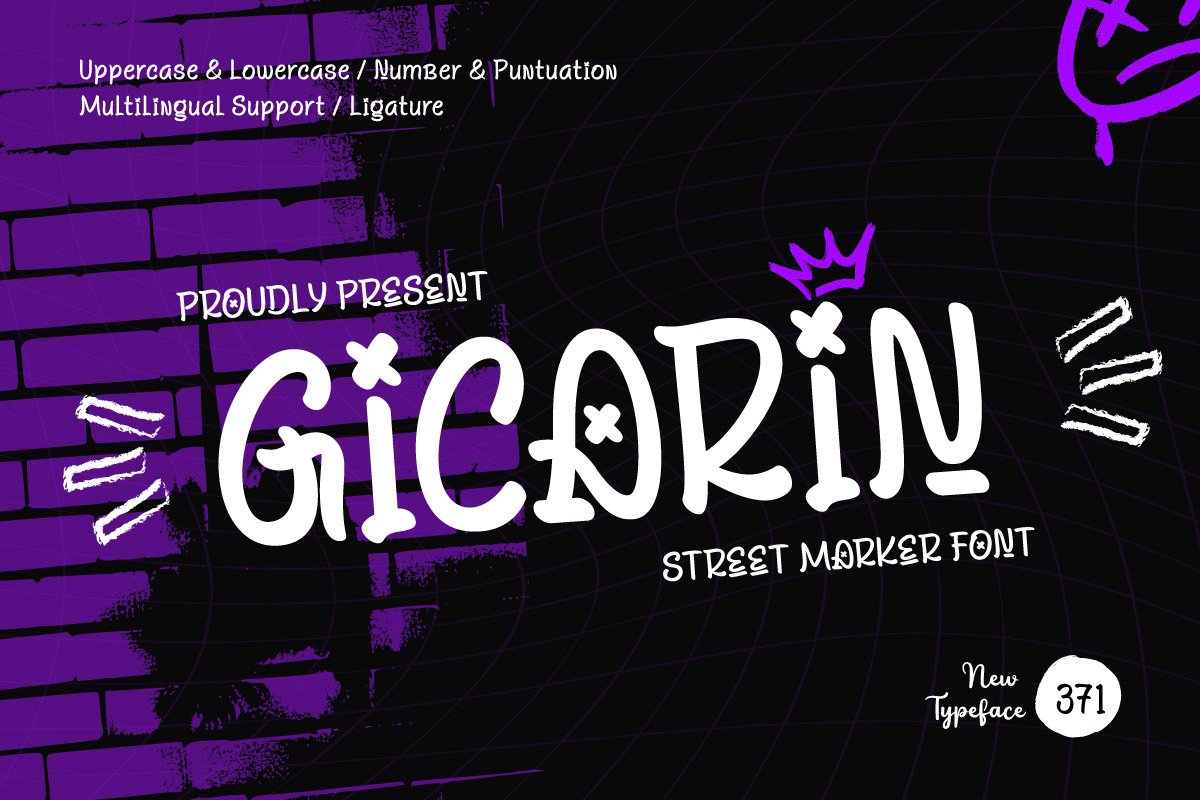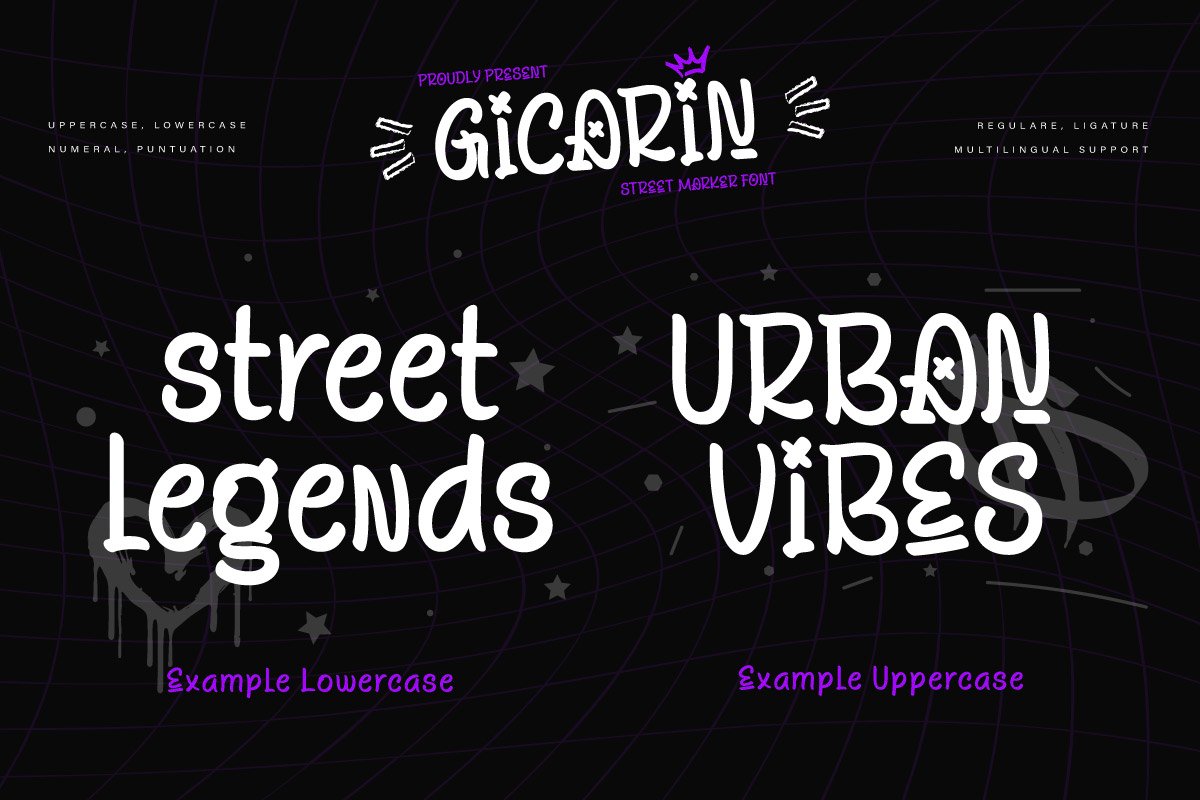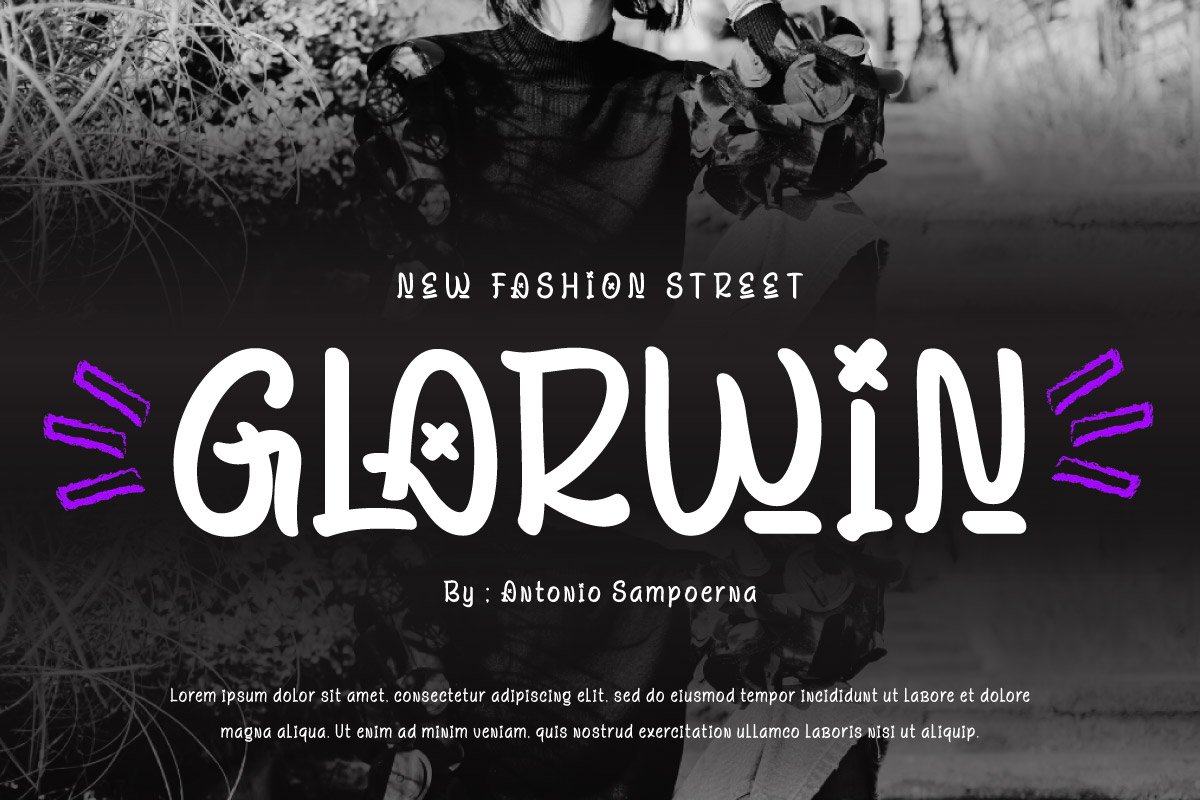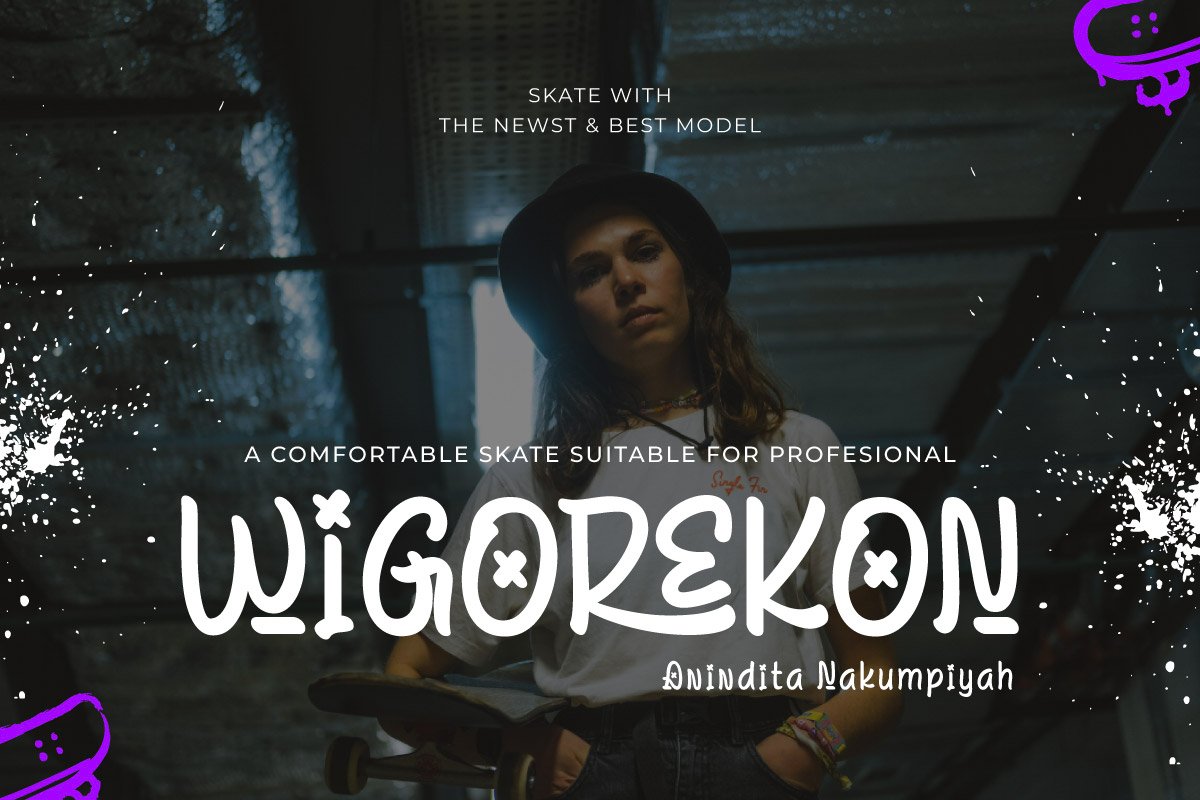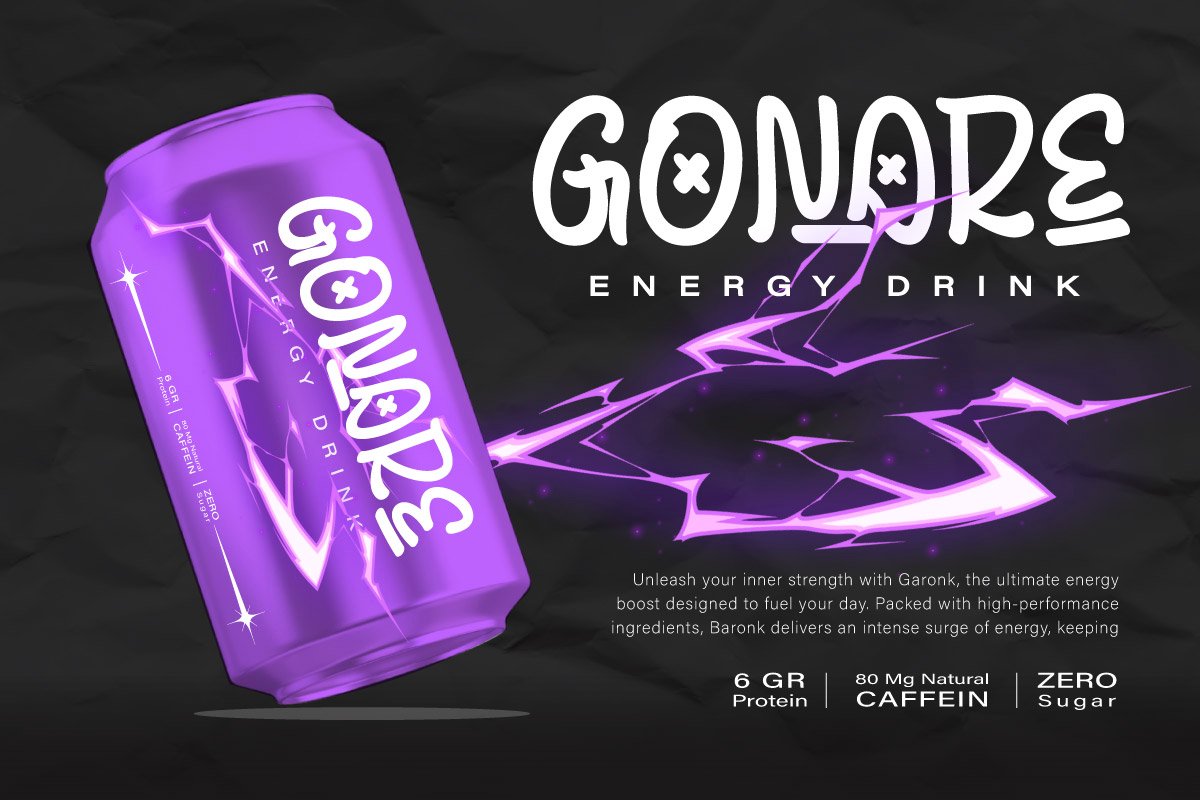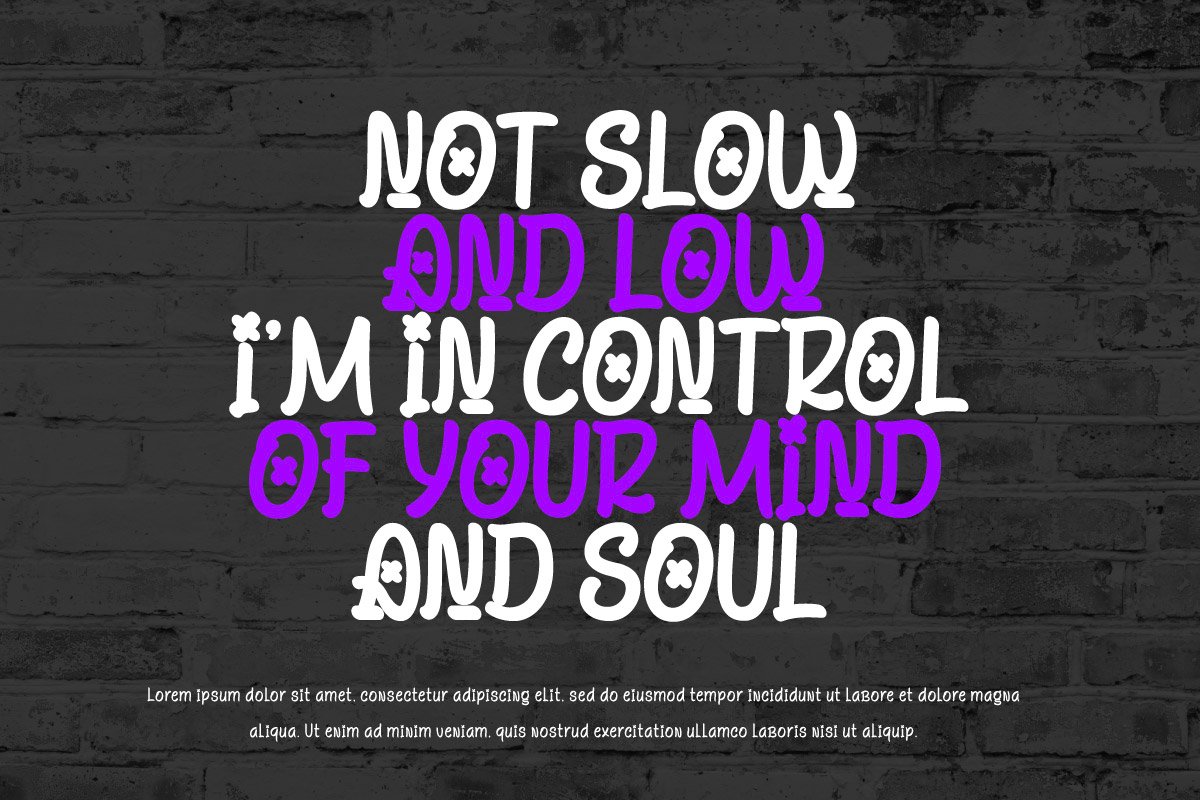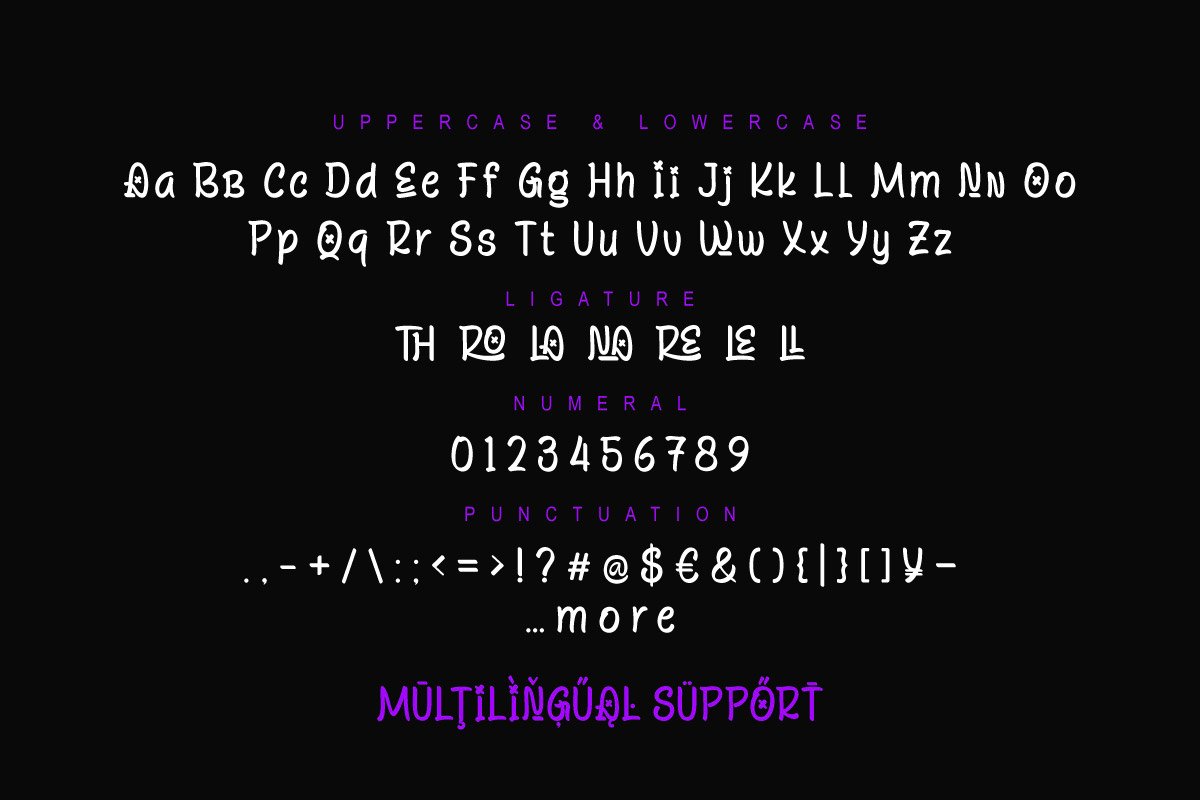
Gicarin – Graffiti Display Font
Gicarin is a bold graffiti-inspired typeface that captures the raw energy of street culture. With its dynamic strokes, playful accents, and expressive details, this font brings a powerful urban vibe to any design. Perfect for posters, branding, album covers, digital artworks, and creative projects that call for a daring and modern edge.
Equipped with uppercase, lowercase, numbers, punctuation, ligatures, and multilingual support, Gicarin is designed to help your work stand out with a fearless and energetic style.